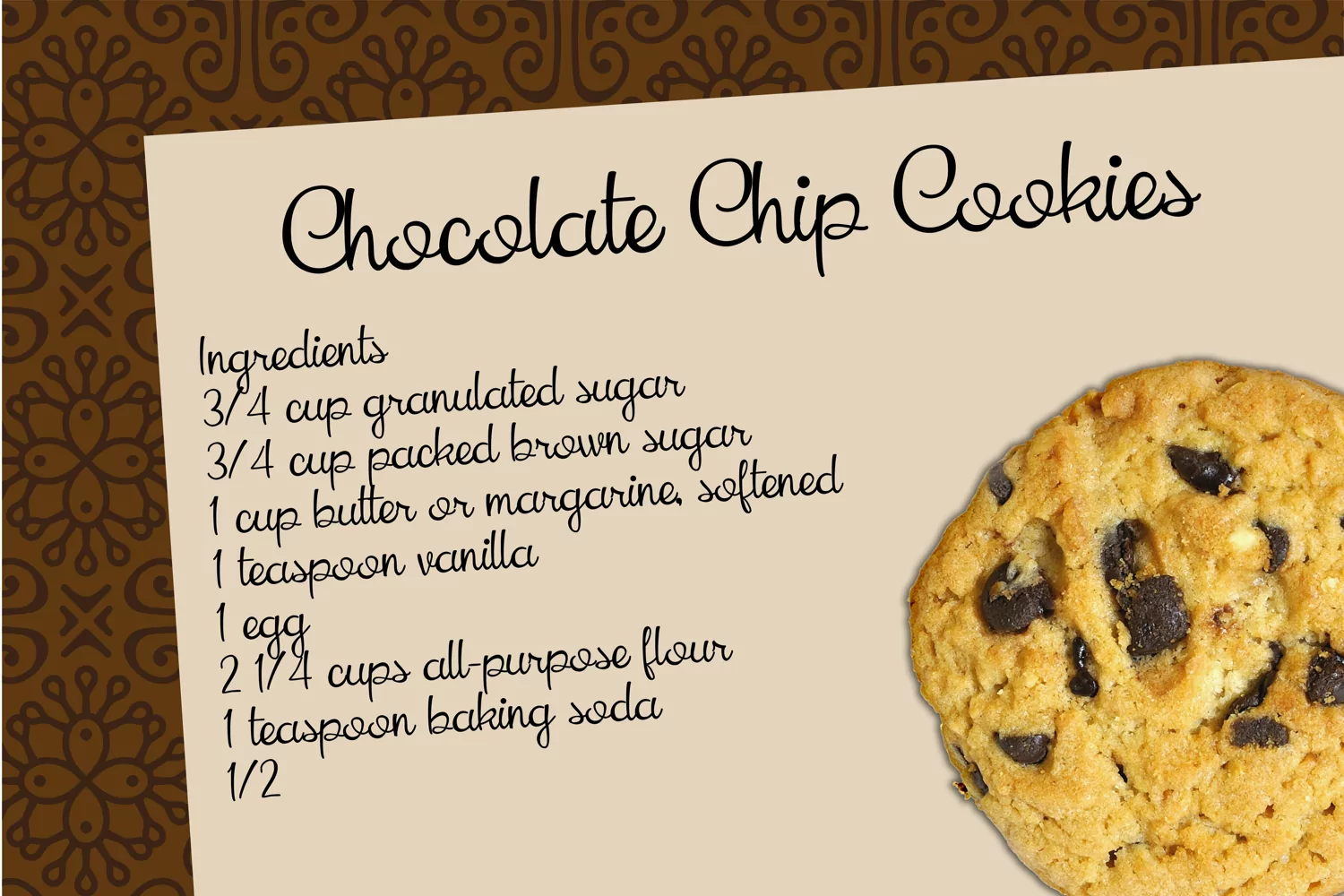
PN Cookie King
PN Cookie King is a deliciously fresh script with a handmade style. It's great for journaling, letter writing, invitations, quotes, and more.